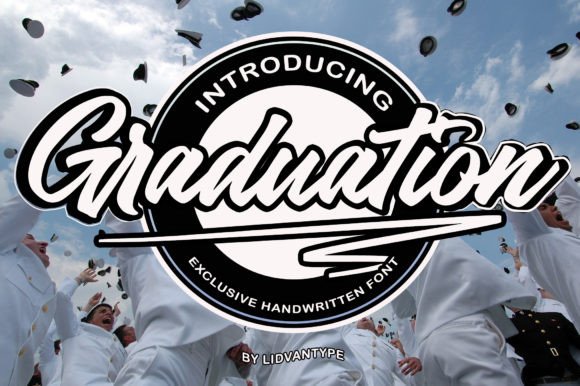
Introducing Graduation Font, a stunning addition to your design arsenal that will make your projects look elegant and stylish. Created by the talented LidvanType, this script font is perfect for anyone who wants to add a touch of luxury and sophistication to their designs.
With its flawless shape and impeccable handwriting, Graduation Font is the ideal choice for any design project that requires a personal touch. Whether you're creating wedding invitations, thank you cards, quotes, greeting cards, logos, business cards, t-shirt designs or anything else, this font will elevate your work and make it stand out.
One of the things that sets Graduation Font apart from other fonts is its versatility. This font can be used in a wide range of design projects, and it always looks amazing. Its stylish and luxurious appearance is sure to capture the attention of your audience and leave a lasting impression.
But that's not all. Graduation Font is also incredibly easy to use. Its simple and straightforward design means that you don't need to be a design expert to create beautiful projects. Plus, it's available in multiple formats, including OTF, TTF, and WOFF, so you can use it on any device or platform.